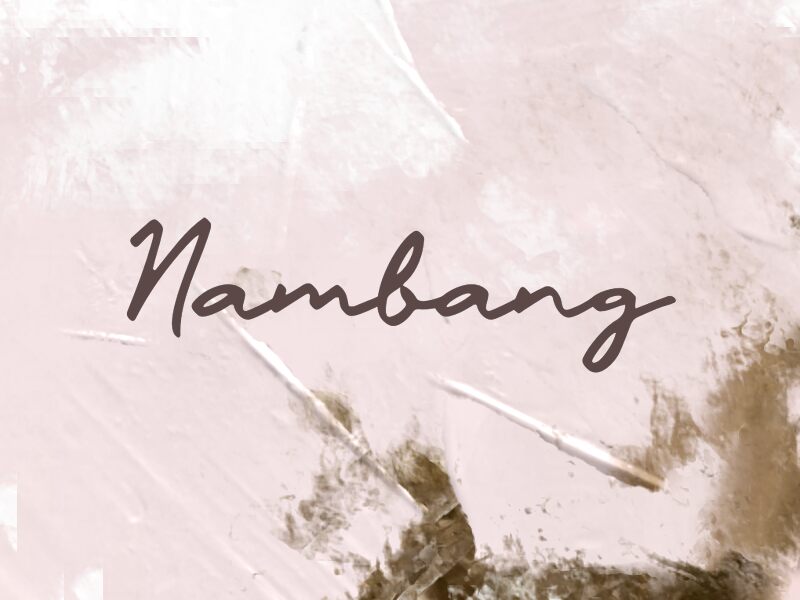
n Nambang font designed by wep is a free font with an elegant, handwritten style and flowing characters crafted to create a personal writing feel. This font meets all of your office signature and invoice needs when transforming them into a delicate project that resembles and vivifies a human touch. Become more approachable with this gorgeous addition and connect with your audience.
Sometimes all you need is to add a small intriguing element to your designs to make them stand out, and n Nambang certainly does the trick. You can add it to UX and UI projects, cards, art prints and posters, apparel designs, book covers, articles, blogs, and many others that will instantly enchant your viewers.
Nambang is a stylish and modern free font designed to elevate your creative projects. With its unique character and versatility, this font is perfect for adding a touch of creativity to your designs. Whether you're working on graphic designs, web projects, or any other creative endeavors, Nambang provides an excellent choice for a contemporary and eye-catching look.